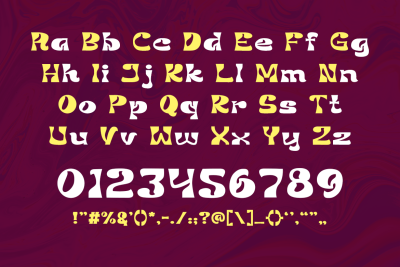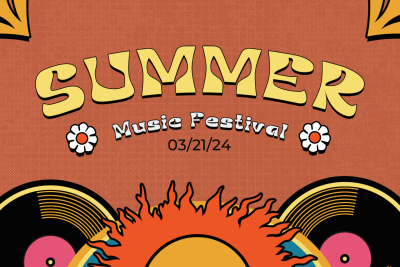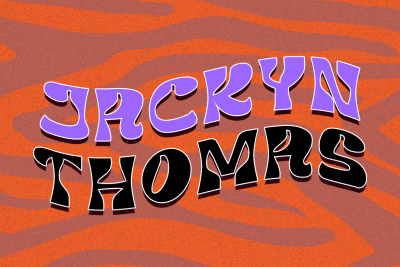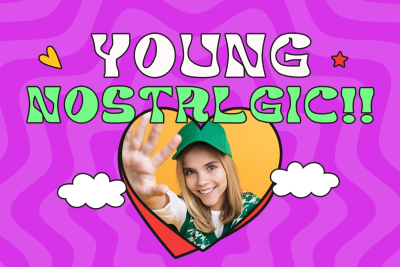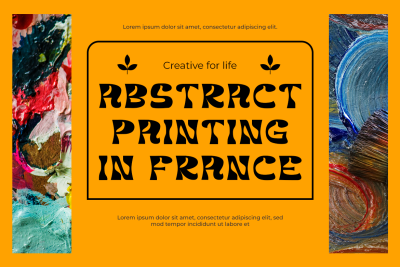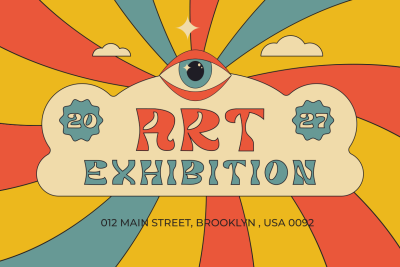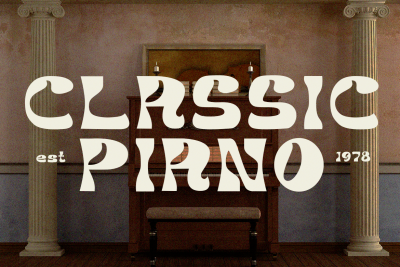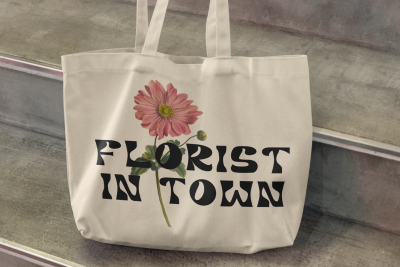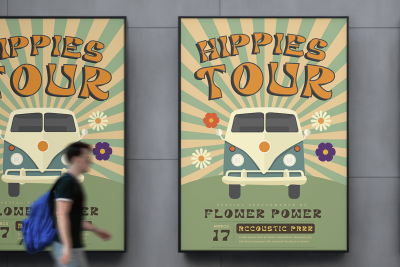
Vintage Font Mandow is a bold and lively typeface that captures the essence of retro design. Moreover, with its playful curves and artistic details, it adds personality and charm to any creative project. This font draws inspiration from vintage styles, making it perfect for nostalgic designs that also need a modern twist. Furthermore, its versatility ensures it works well for various uses, including posters, merchandise, and digital graphics. Mandow blends legibility and uniqueness, making it ideal for impactful headlines and display text.
In addition, this font offers stylistic alternates that give designers the freedom to experiment and refine their work. Whether for branding, promotional materials, or event invitations, Mandow brings an eye-catching appeal. Similarly, its retro charm is balanced with modern usability, making it a practical choice for contemporary design needs. Its dynamic and bold appearance helps your work stand out while maintaining a timeless feel. Therefore, adding a burst of personality to your projects with this versatile and fun typeface becomes effortless.
Vintage Font Mandow Best Suited For
Mandow is ideal for designers and creators seeking a retro-inspired touch for their projects. For example, itโs perfect for event organizers creating themed invitations, posters, or banners that demand attention. Additionally, small business owners in the fashion, entertainment, or lifestyle industries will benefit from its bold style, using it to enhance branding and promotional materials.
Furthermore, digital marketers and social media managers can use this font to create standout visuals, from Instagram posts to e-commerce banners. Likewise, Mandow is excellent for crafting unique logos, product packaging, and handmade goods branding. It pairs beautifully with vibrant colors and creative layouts, ensuring your designs remain memorable. Its versatile design makes it suitable for both print and digital media, ensuring a consistent, eye-catching aesthetic across platforms. Thus, whether for professional branding or creative personal projects, Mandow is a reliable and stylish choice.